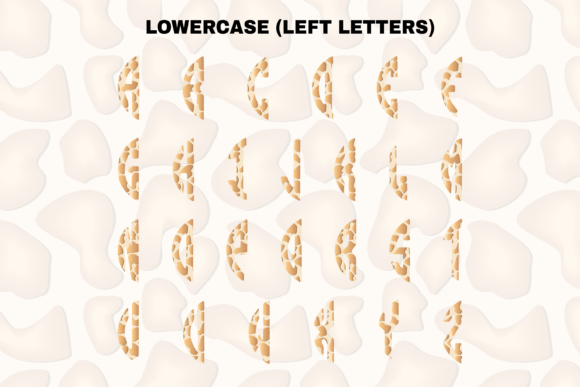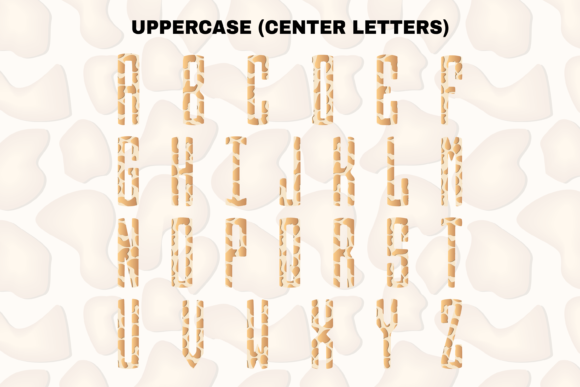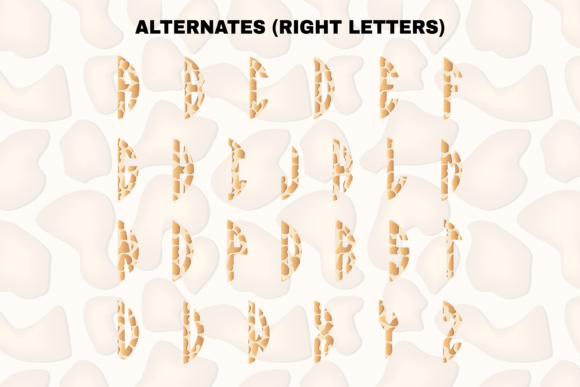
The Perfect Blend of Whimsy and Style: Unlocking the Magic of Giraffe Circle Font
Who hasn’t experienced that moment when a spark of creativity strikes, and you know exactly what you want to create? For designers, that moment is often the starting point of a new project, and the right tools can make all the difference. Imagine adding a touch of playfulness to your custom designs or DIY crafts – that’s where the Giraffe Circle Font comes in.
This charming 3-letter monogram font is more than just a font; it’s a key to unlocking your creativity. With its adorable giraffe elements and ease of customization, the Giraffe Circle Font is an invaluable asset for designers looking to add a personal touch to their work. Whether you’re working on a custom design or a DIY project, this font is sure to bring a smile to your face and a touch of whimsy to your creations.
Giraffe Circle Font Key Features
- Font Family: Giraffe Circle Font is a unique, hand-drawn font family designed for various creative applications.
- Character Count: The font family includes over 200 characters, including uppercase and lowercase letters, numbers, and special characters.
- Size: The font is designed to be highly scalable, suitable for use in various sizes, from 8pt to 72pt, and beyond.
- Resolution: Optimized for high-resolution displays, making it perfect for use in digital applications, such as websites, social media, and mobile devices.
- Unique Characteristics: The Giraffe Circle Font features a distinctive, whimsical design with rounded shapes and subtle imperfections, adding a touch of personality to any project.
Giraffe Circle Font Review
Overall, I’d say the Giraffe Circle Font is a quirky and fun font that can bring a playful touch to your designs. Here are some things that work well:
- ✨ Unique and creative design: The font’s circular shape and varied line styles make it stand out from more traditional fonts.
- ✨ Great for headings: The font’s bold lines and high contrast make it perfect for grabbing attention and drawing the eye to headings and titles.
- ✨ Versatile: While it may be most suited for informal or playful projects, the font can also work well in more formal contexts, depending on the specific design and intended audience.
- ⚠️ Limited legibility: In smaller sizes or when used for body text, the font can become difficult to read, especially for those with vision impairments.
- ⚠️ May not be suitable for large blocks of text: The font’s unique design can make it harder to read when used for extended periods, so it’s best to use it sparingly.
Overall, I’d recommend the Giraffe Circle Font for designers looking to add some whimsy and personality to their projects. Just be mindful of its limitations and use it thoughtfully.
The Giraffe Circle Font is perfect for creating playful and whimsical designs. It’s commonly used in:
1. Children’s book covers and illustrations.
2. Party invitations and decorations.
3. Social media graphics and advertisements.
4. Educational materials and worksheets.
Remember to experiment with different font sizes, colors, and combinations to get the most out of the Giraffe Circle Font.